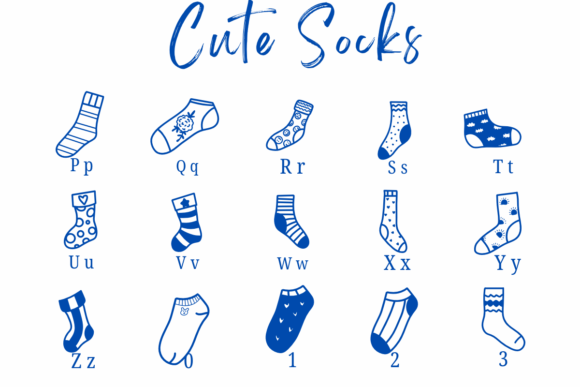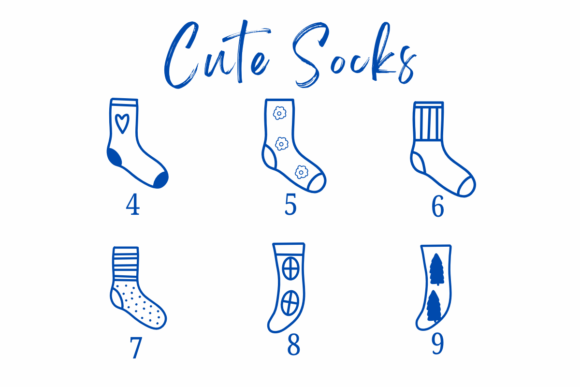
Introduction to Cute Socks Font
Cute Socks is a playful dingbat font that features adorable sock designs.
Each character showcases different styles of cute socks, adding a fun and whimsical touch to your text and projects .